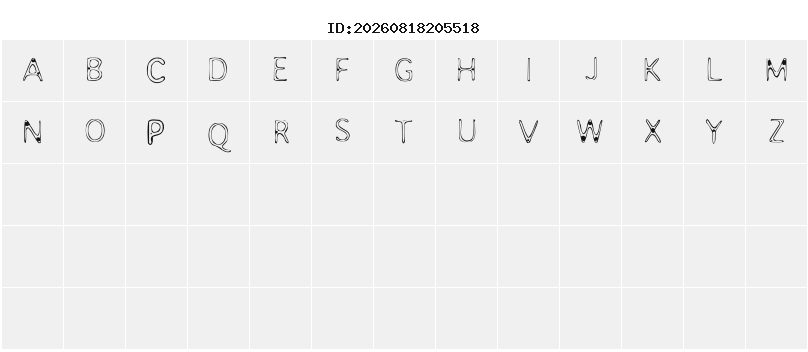
Sirupfont Preview
• Font Name: Sirupfont
• Full Font Name: Sirupfont
About Sirupfont.ttf
Sirupfont.ttf is a modern, elegant sans-serif font designed for ultimate readability and visual harmony. Perfect for branding, headlines, web design, and print materials.